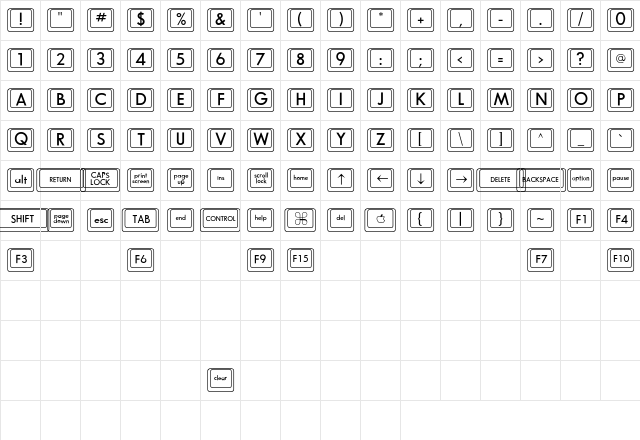
KCaps Regular
Design Context for KCaps
KCaps is a composed and adaptable typeface that performs quietly and consistently across a wide range of design contexts.